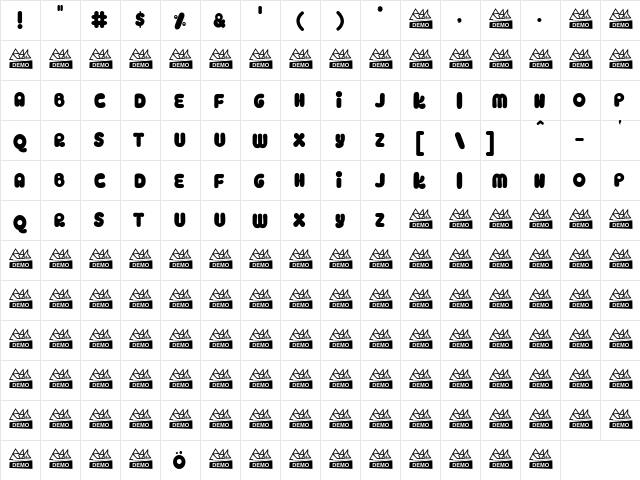
Kingk Regular
Design Context for Kingk Typeface
Kingk is a composed and adaptable typeface that performs quietly and consistently across a wide range of design contexts.